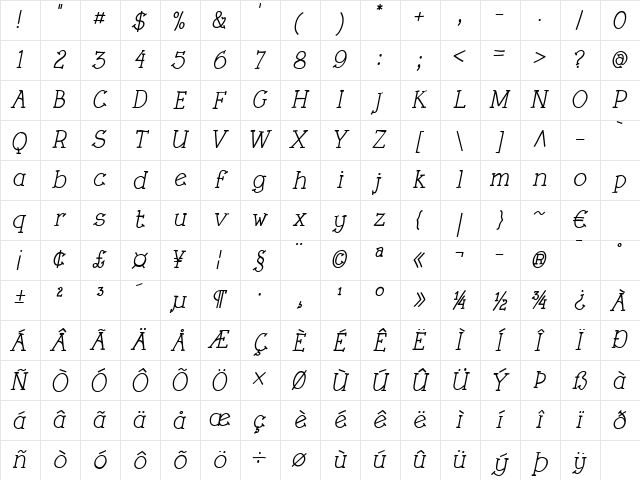
Rough LT Light Bold Italic
Designer: Christophe Badani
Design Context for Rough LT Light
Rough LT Light embraces imperfection - its rough, textured character adds raw authenticity to designs that want to feel lived-in and unconventional. The slanted form adds forward momentum and visual energy.
Pro Tip: Use Rough LT Light at larger sizes where the texture and irregularity of each letterform can be clearly seen - it loses its character at small sizes.